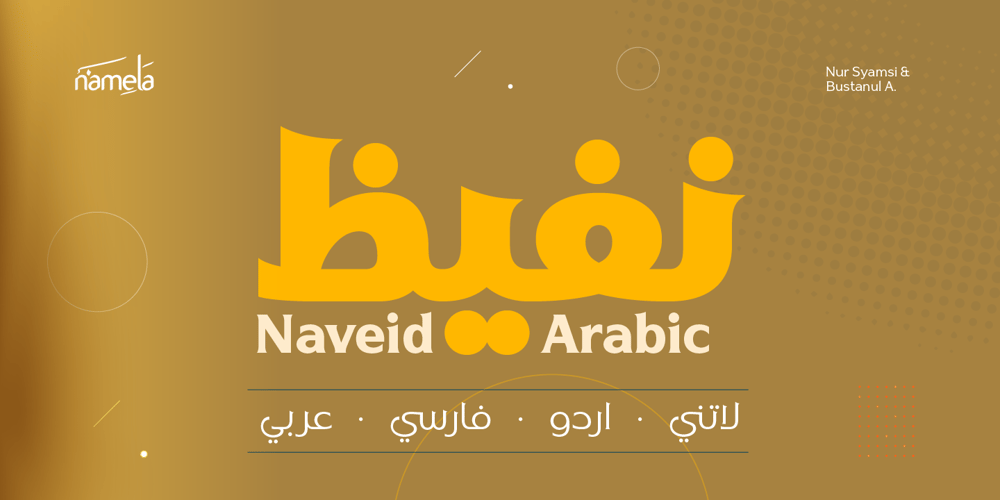
Naveid Arabic
Naveid Arabic font
Naveid Arabic Font Family was designed by Nur Syamsi, Bustanul Arifin and published by NamelaType. Naveid Arabic contains 10 styles and family package options. Naveid Arabic is new version of Naveid with the addition of Arabic glyphs, for Arabic, Urdu, and Farsi.Basic form for arabic font is refers to the arabic kufi style, with combining the cuppped serif on top and the tinny Subtle Flaring on the terminal, to harmony with Latin.